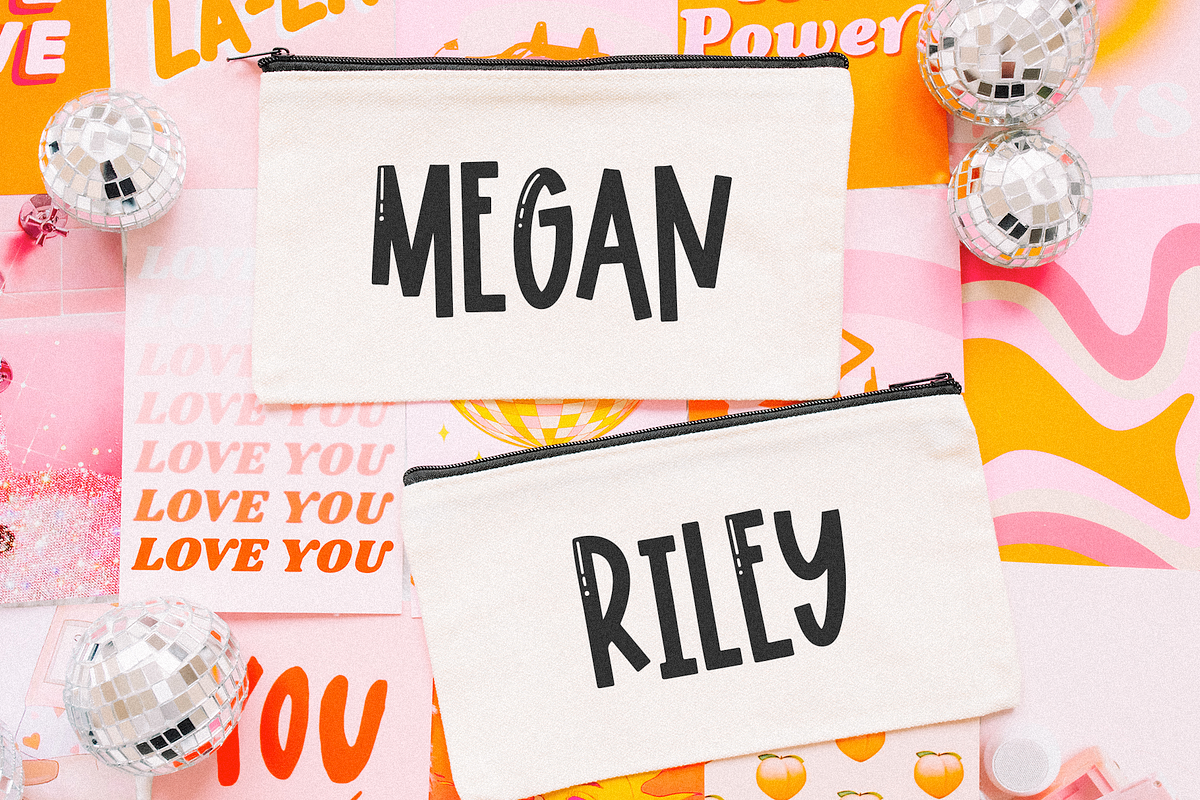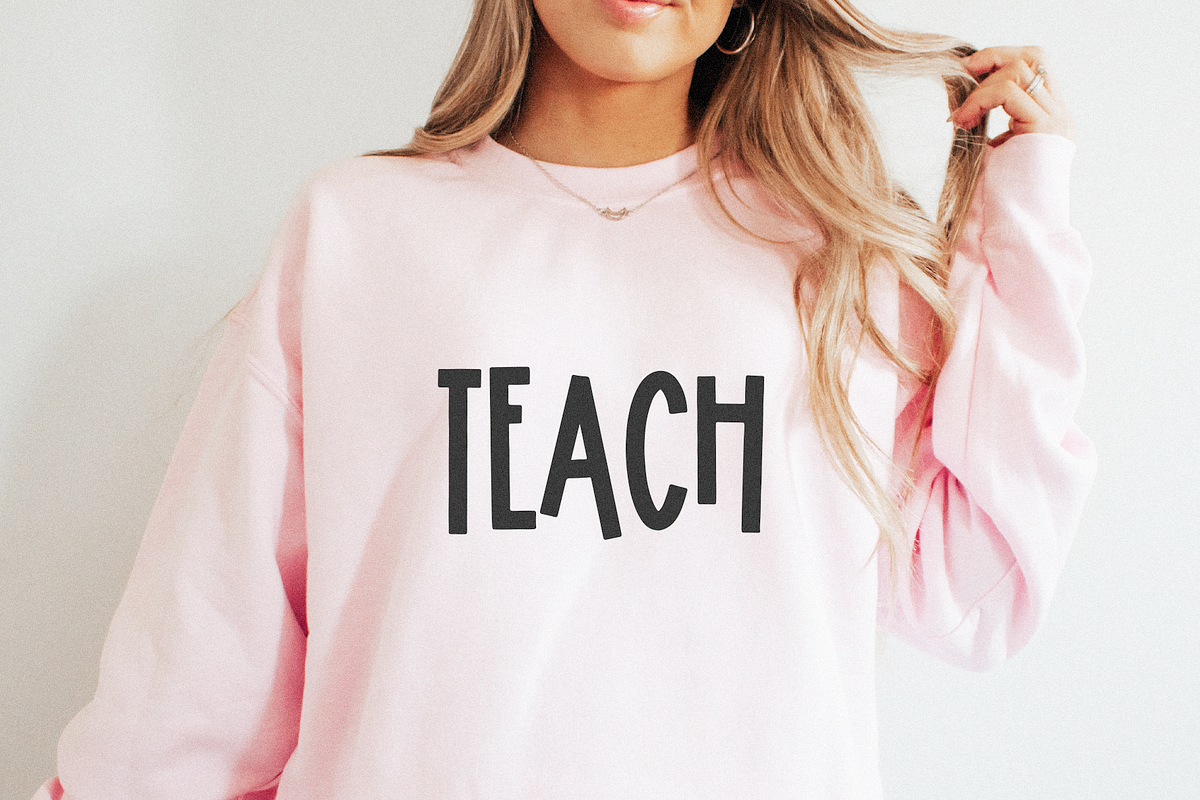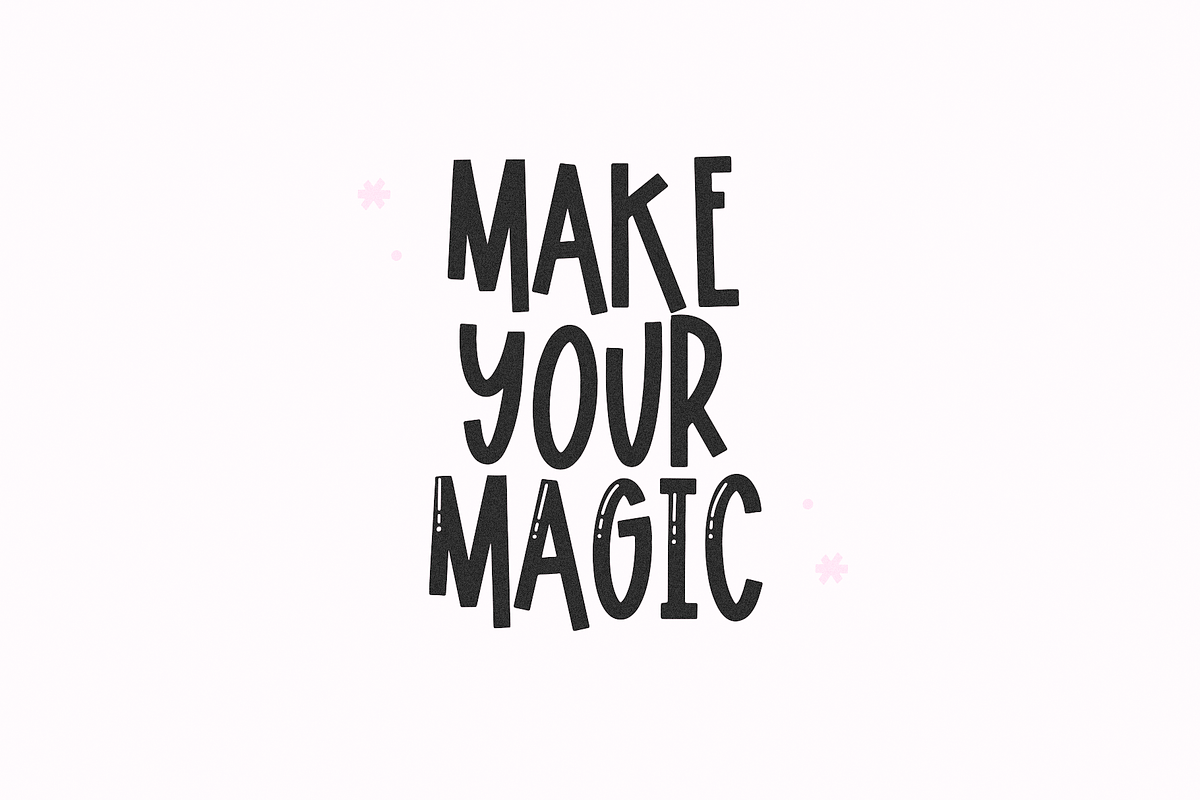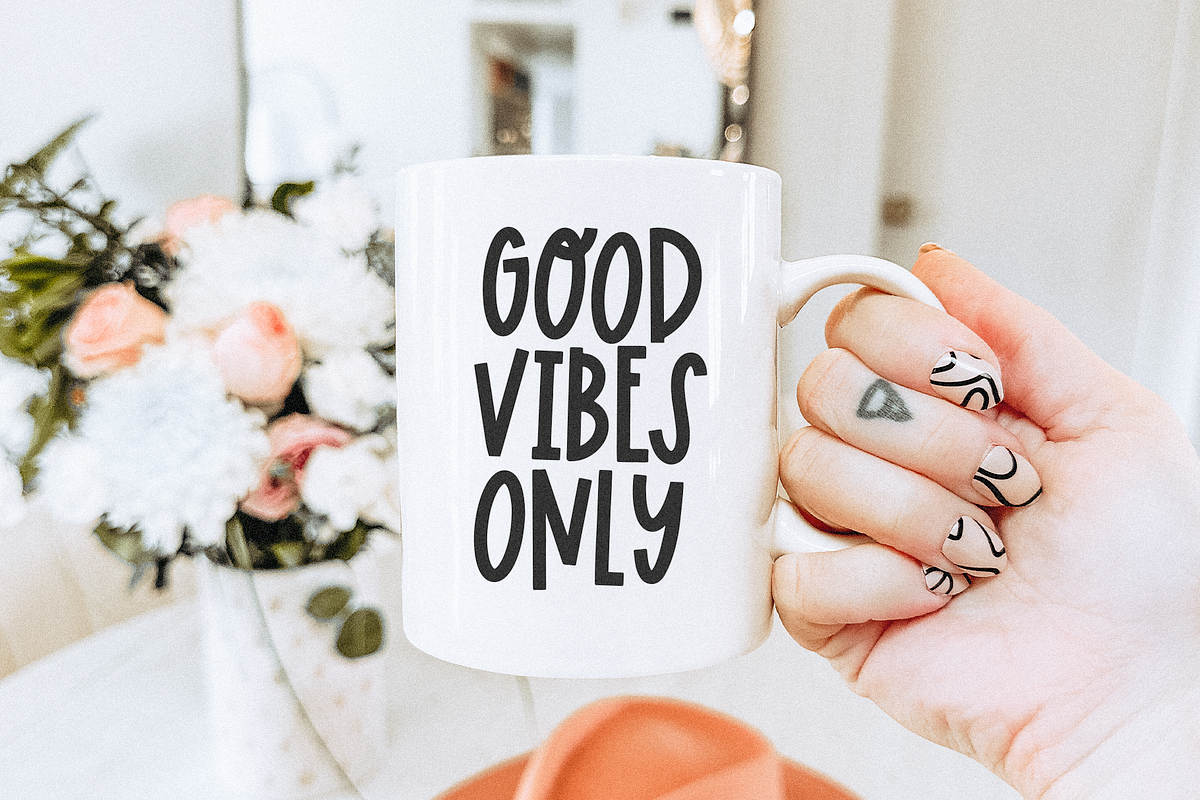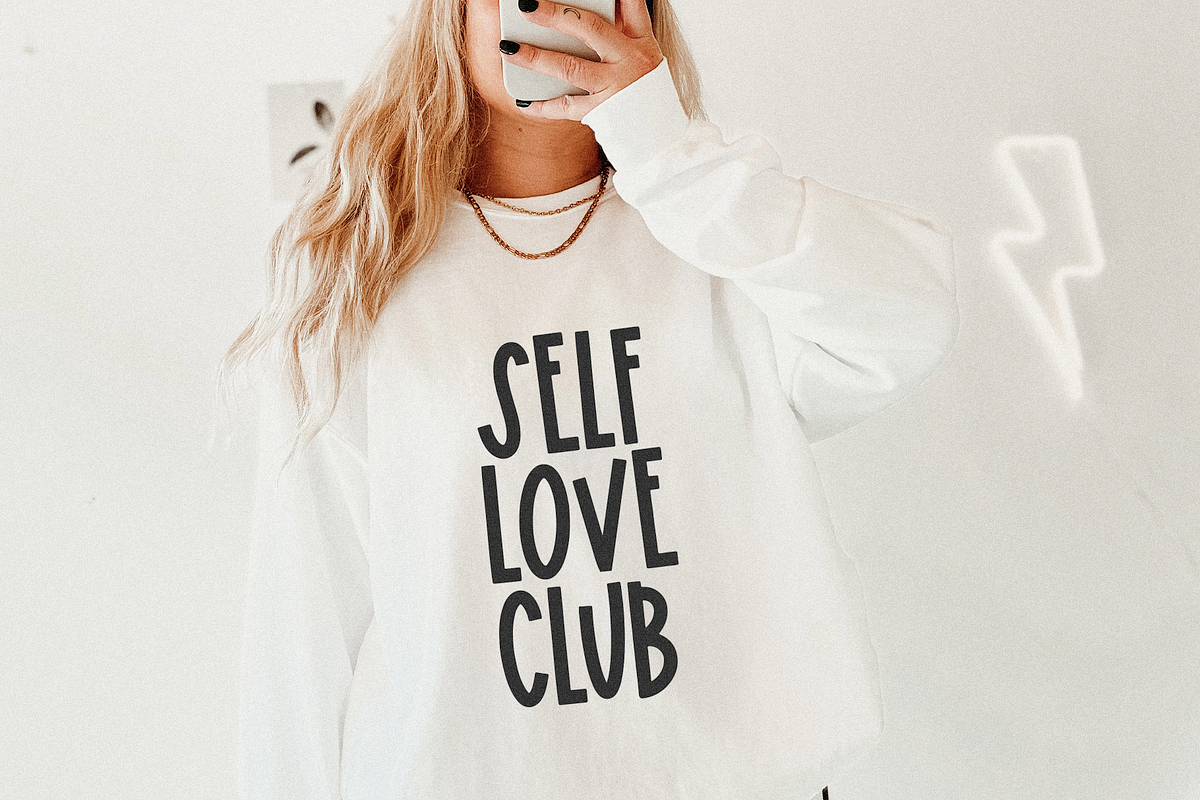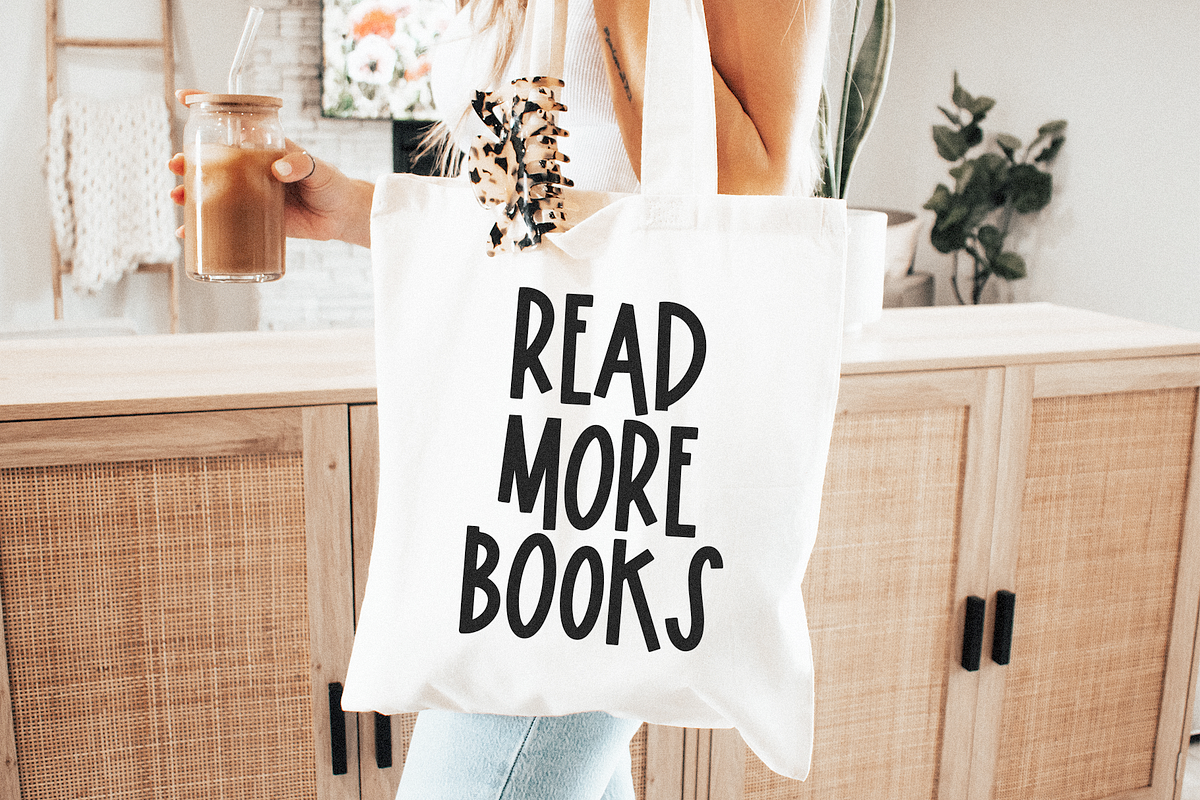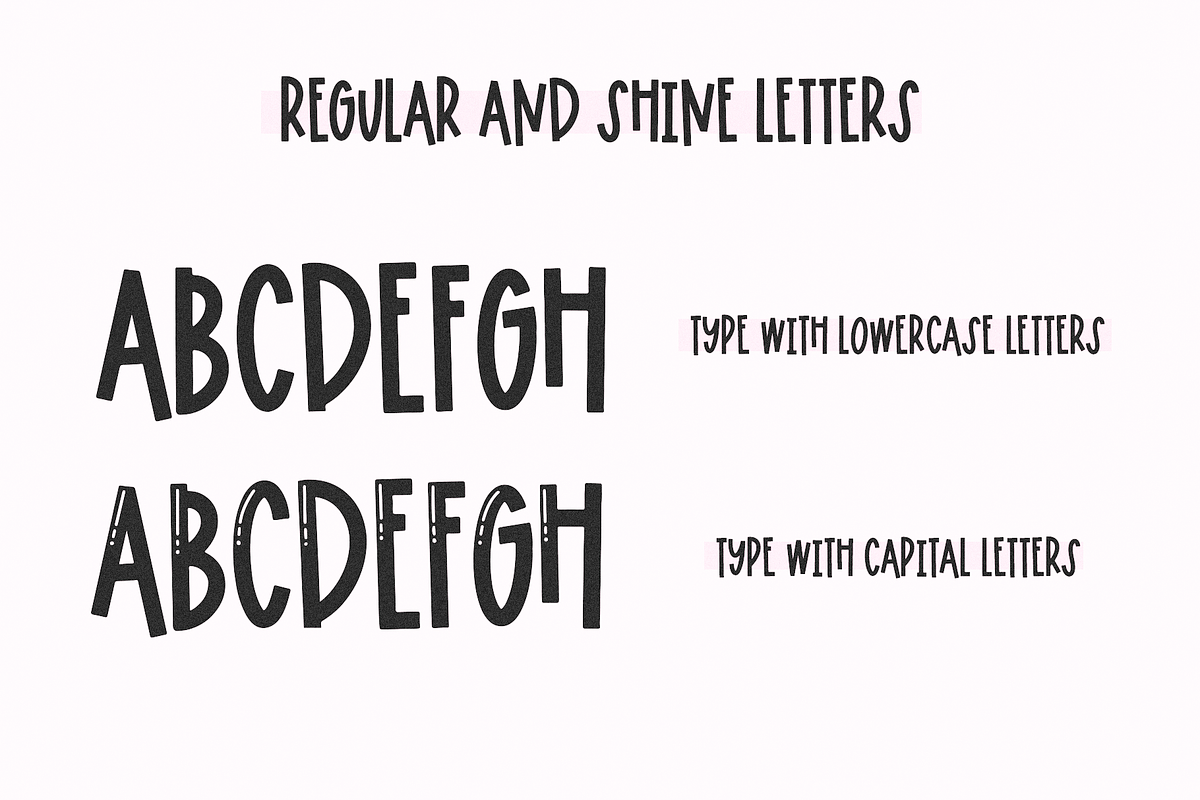
Lagoon | Quirky Handwritten Font
Lagoon is a fun + quirky handwritten font!
This font is perfect for all of your crafting projects, kids designs, t-shirt designs, svgs, invitations, branding, logos and more!
- Most accent characters included.